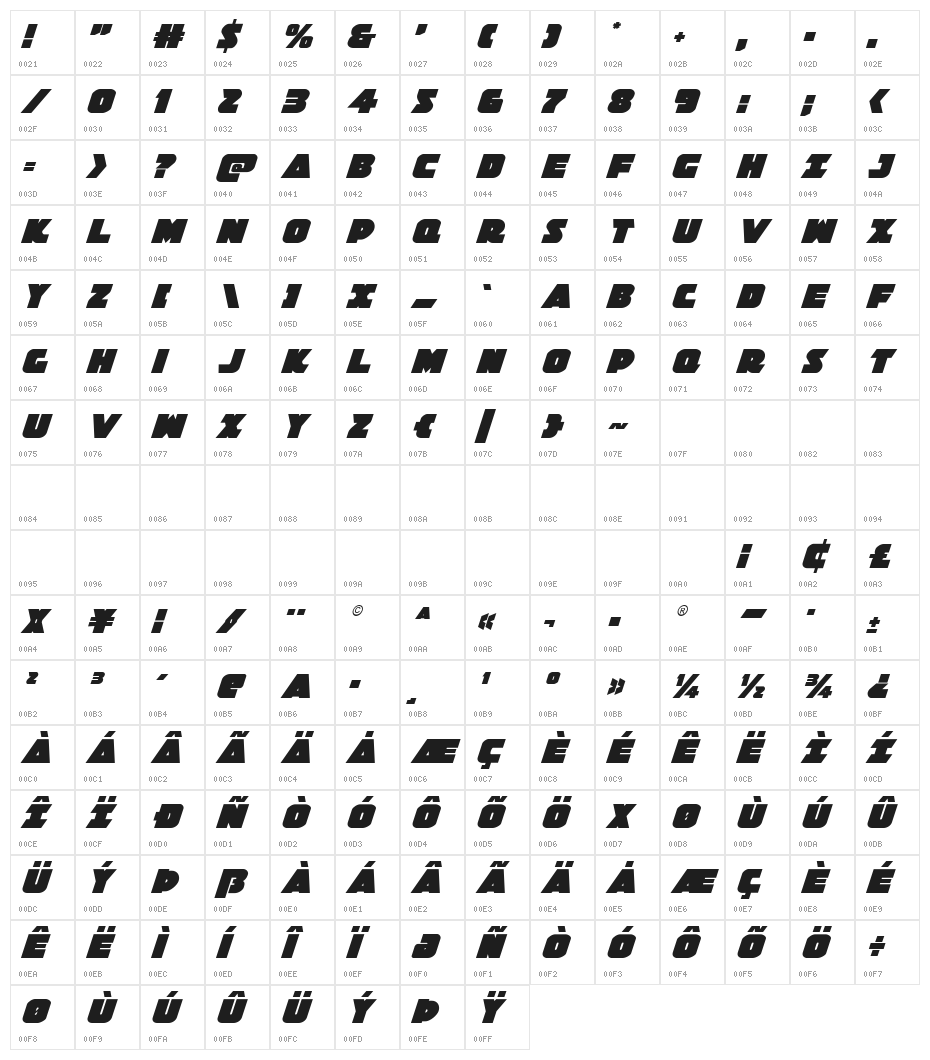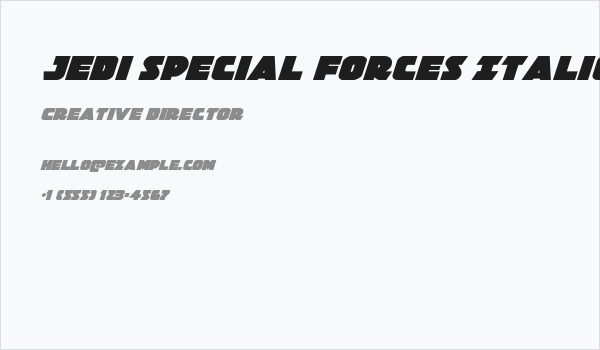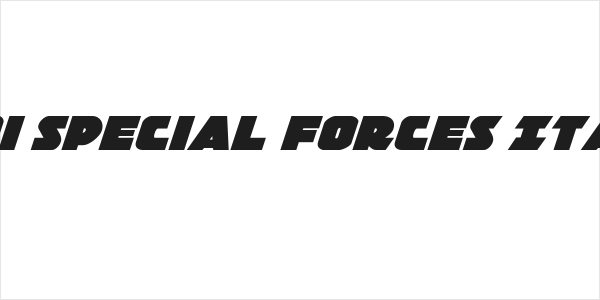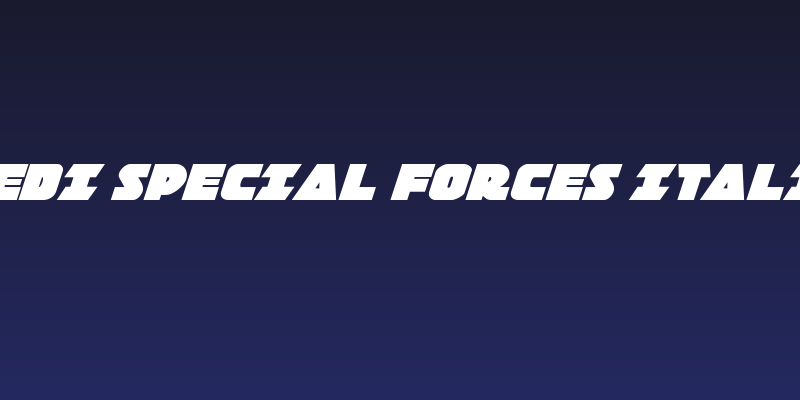
Jedi Special Forces Italic Font
Jedi Special Forces Italic Description
This font features a bold and dynamic design with a futuristic flair. The characters are italicized, giving a sense of motion and energy. The strokes are thick and consistent, providing a strong visual impact. The angular cuts and sharp edges contribute to its modern and aggressive appearance. The font is highly stylized, making it suitable for attention-grabbing headlines or logos. Its unique style is reminiscent of science fiction themes, with a sleek and powerful aesthetic. The character spacing is tight, enhancing the compact and cohesive look of the text.
| Proposed Projects | Ideal for sci-fi themed projects, video game titles, movie posters, and branding that requires a strong, modern look. |